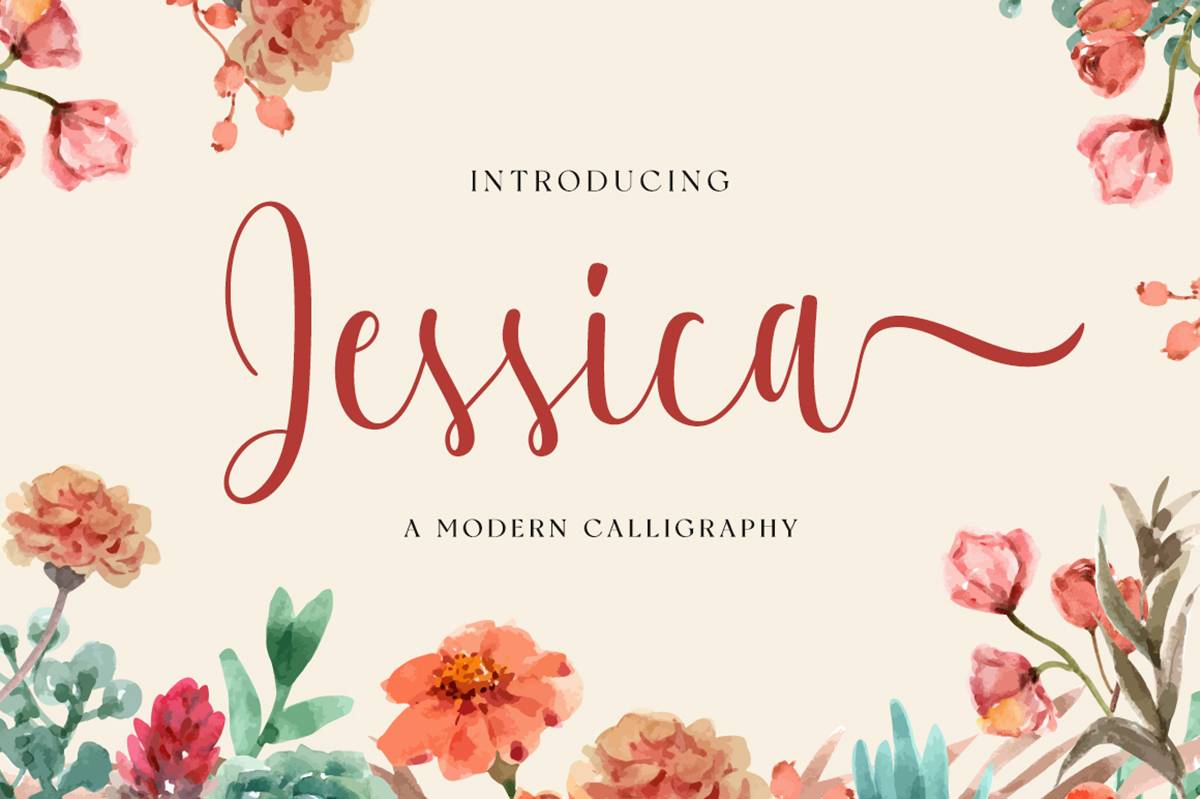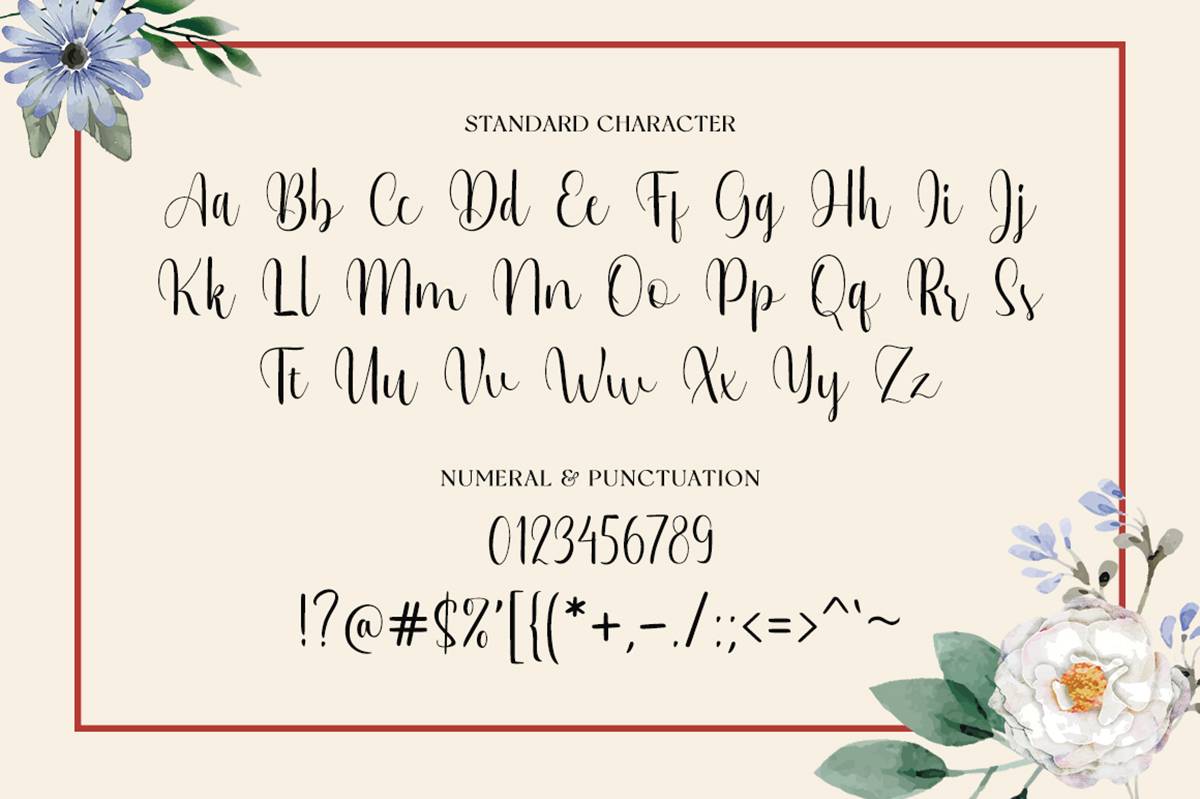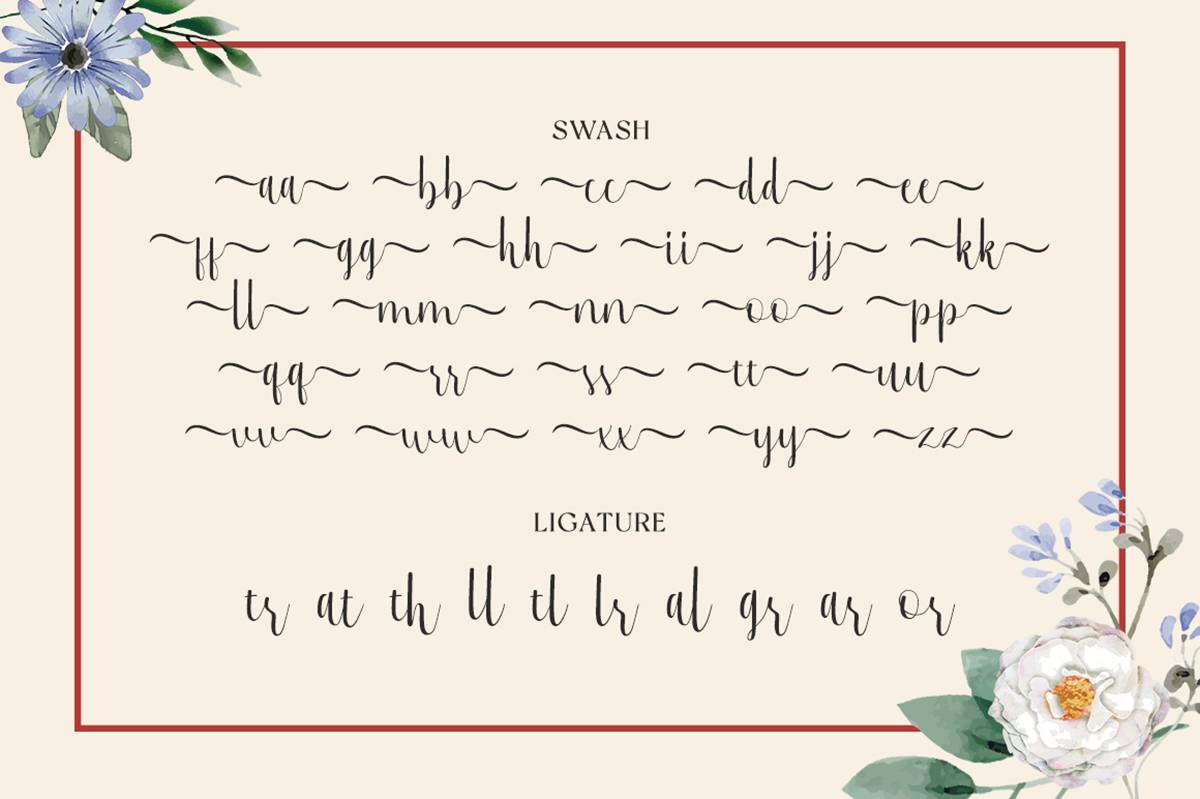
Jessica Font is a delicate, elegant script typeface with a tall x-height and slender, flowing strokes that create a graceful, hand-lettered feel. Its thin, slightly curved lines and playful character shapes make it ideal for feminine branding, wedding invitations, or creative projects that need a charming and sophisticated touch. This font works wonderfully for headlines, logos, and decorative text where a stylish and personal flair is desired.
Jessica Font
About Jessica Font
| Font family | Jessica Font |